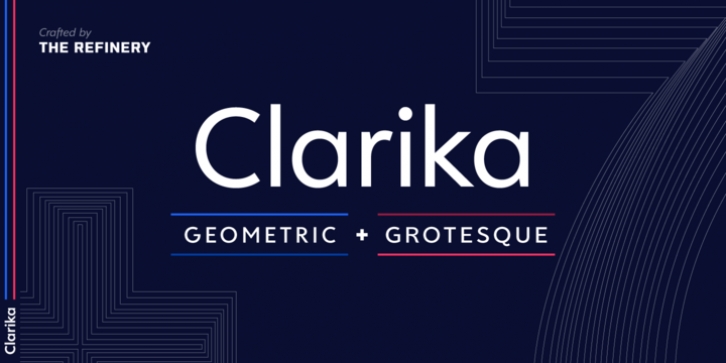
Clarika downloadDesigner: Brandon Knap
Publisher: The Refinery
Clarika is a geometric sans serif type system consisting of eleven weights and two style variants; Clarika Geometric and Clarika Grotesque. As the name would imply, Clarika boasts incredible legibility at both body and display sizes.